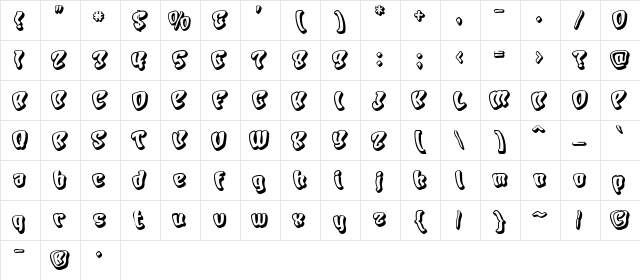
Character Shadow
Design Context for Character Typeface
Character brings ornamental detail and strong personality to headlines and identities, where visual impact matters more than quiet functionality.
Font Pairing: Pair with a clean neutral sans-serif for body copy to let Character's character lead without overwhelming the composition.
Pro Tip: Treat Character as the centrepiece of your typographic hierarchy. One strong heading set in a decorative face can carry an entire layout.